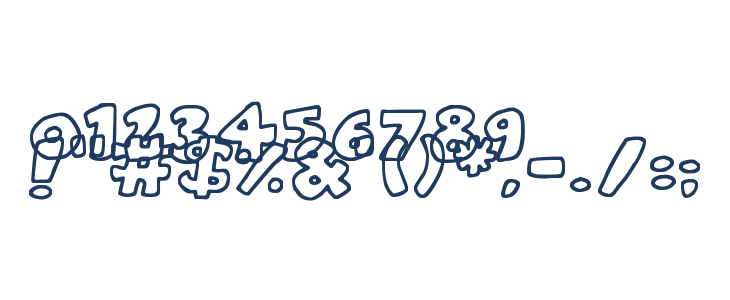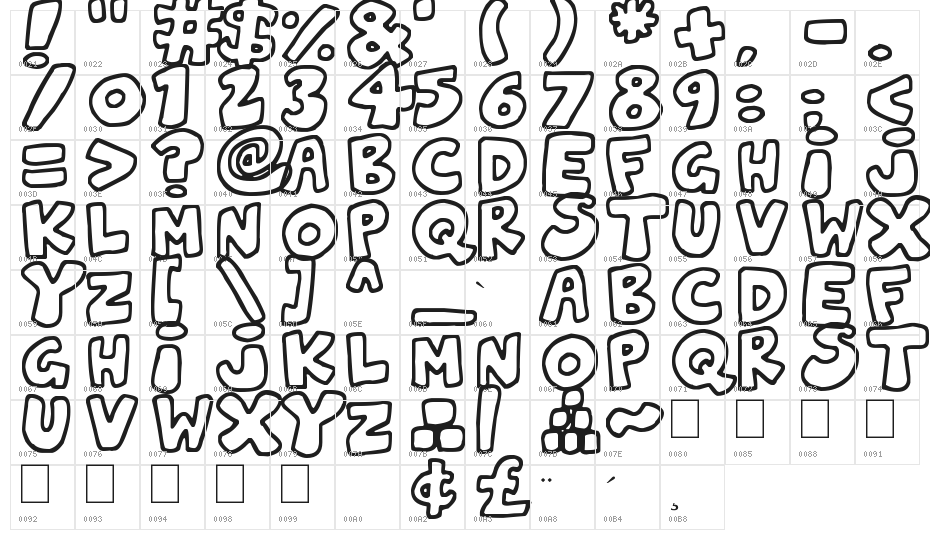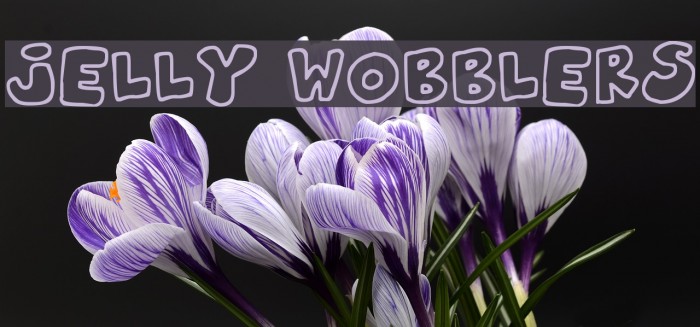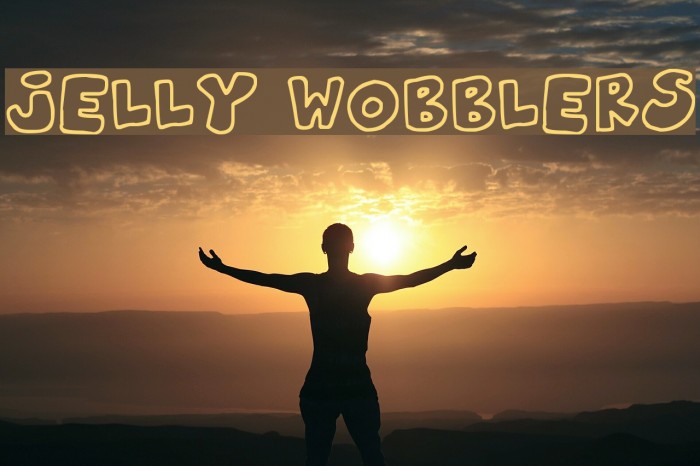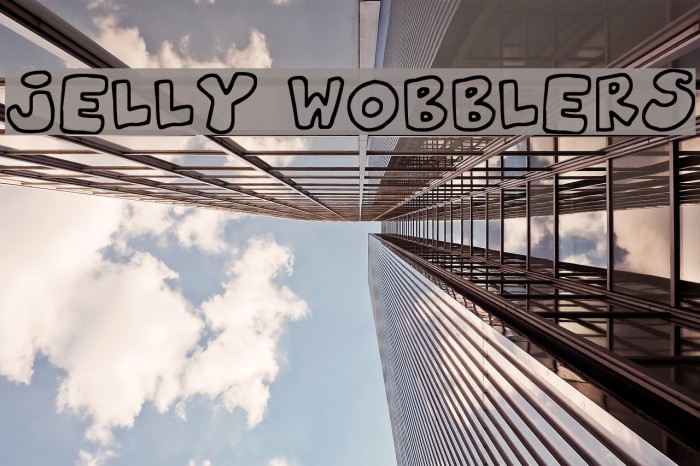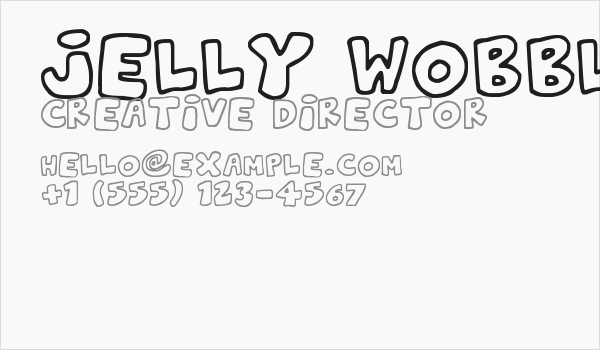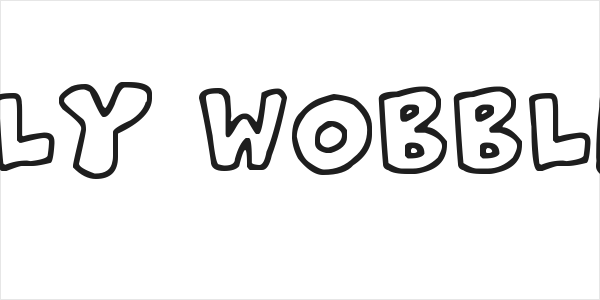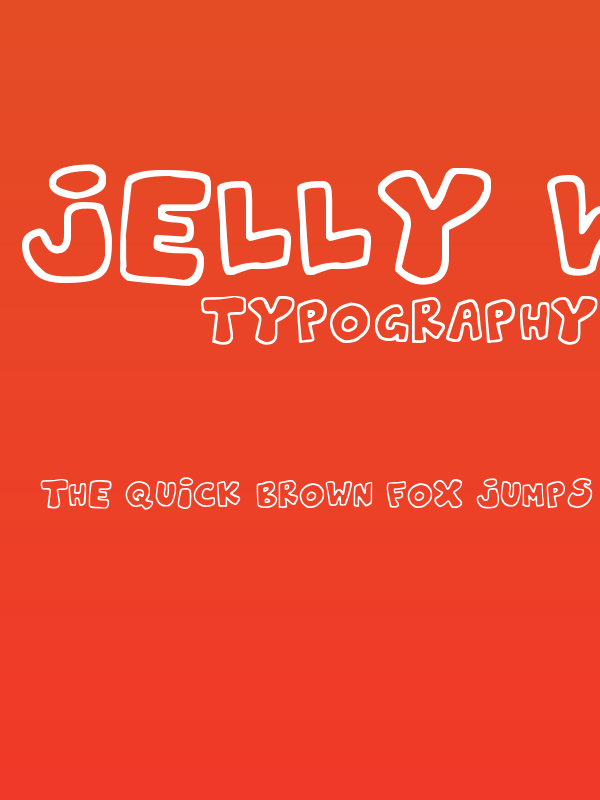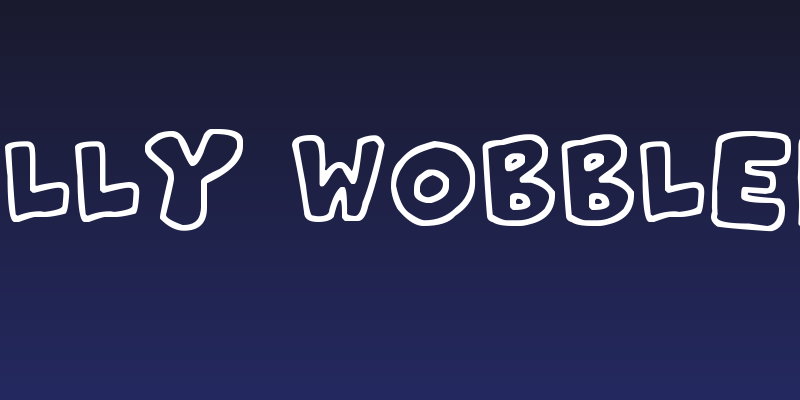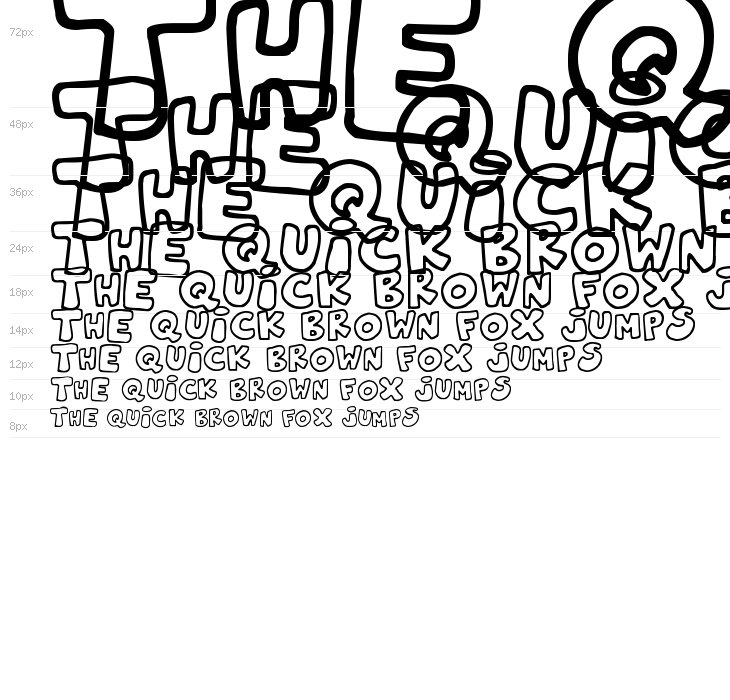
Jelly Wobblers Font
Jelly Wobblers Description
This playful and whimsical font features bold, rounded characters with a hand-drawn appearance. The letters have a bouncy and uneven baseline, giving them a lively and dynamic feel. The thick strokes and soft curves create a friendly and approachable look, making it ideal for projects that require a fun and informal touch. The font includes both uppercase and lowercase letters, numbers, and a variety of special characters, all maintaining the same quirky style. Its unique design is perfect for capturing attention and adding a sense of joy and creativity to any text.